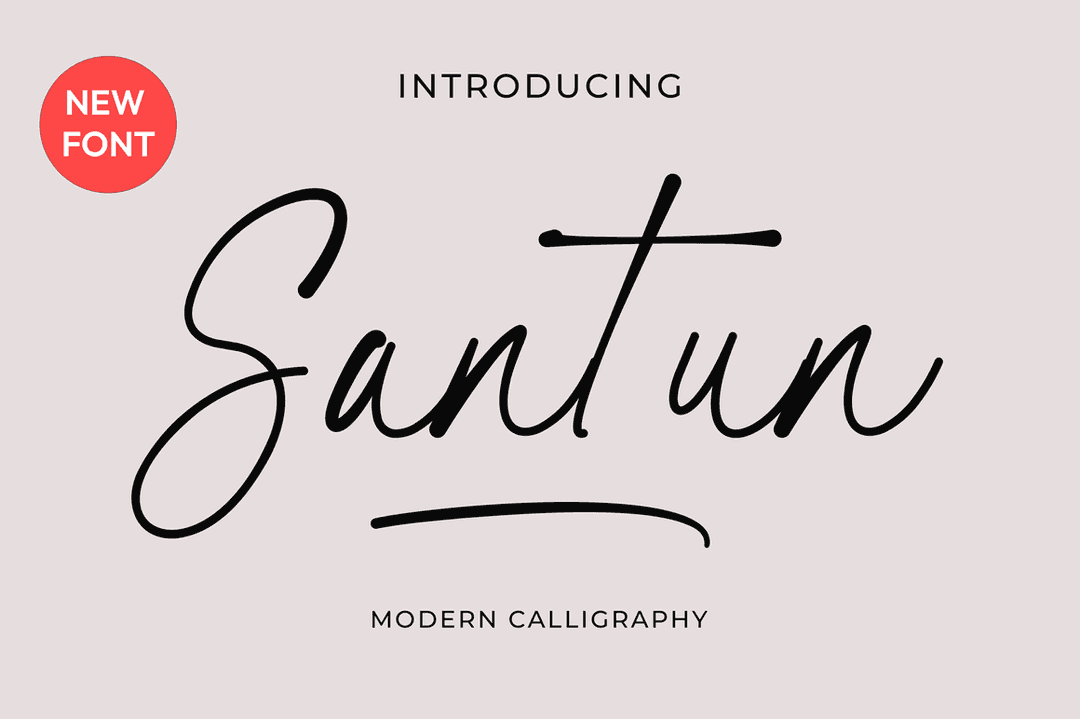
Santun is an exquisite script-style calligraphy font. Stunning in design and precise in execution, Santun will enhance any design. PUA encoded to make use of all glyphs as well as swashes easy!